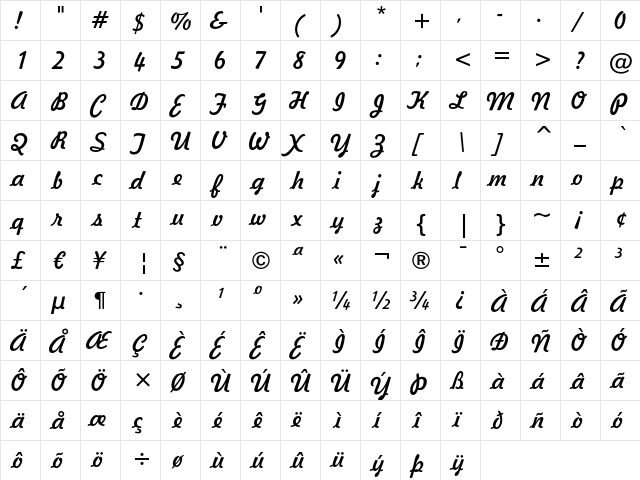
Freehand 521 Regular
Design Context for Freehand 521 Typeface
Freehand 521 flows with the natural rhythm of handwritten lettering, making it ideal for designs that call for warmth and personal expression.
Font Pairing: Combine Freehand 521 with a simple geometric sans for maximum contrast — the tension between flowing curves and clean structure is a classic typographic pairing.
Pro Tip: Use Freehand 521 for short runs of text — names, titles, or taglines. Extended body copy in script faces tires the eye quickly.